TypeFace Tuesday :: Mikey Burton
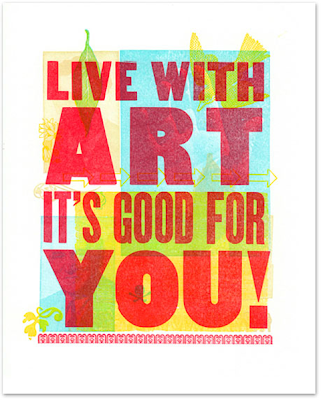
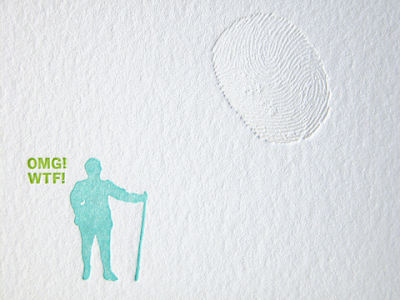
I wrote about Mikey Burton for Grassroots Modern today, but I love his work so much I thought I should share some of it here. His whole Live With Art letterpress series, which was created entirely from antique wood type and ornaments, is so rad. Check out those detail shots! You can snag a print for yourself over at Mikey's Big Cartel shop for a mere $20.